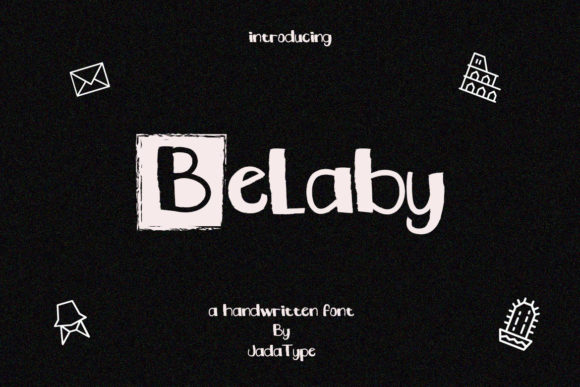
Belaby Font
Belaby is a cool and thick lettered display font. This font is PUA encoded which means you can access all of the amazing glyphs and ligatures with ease!